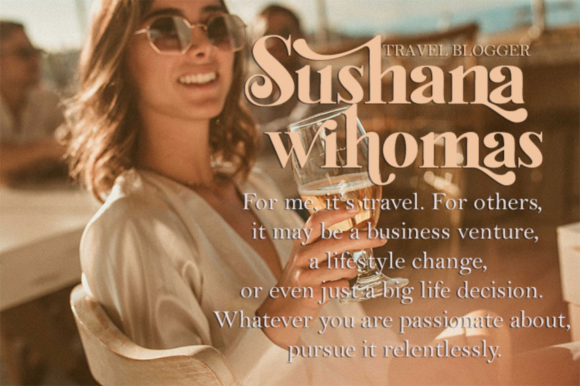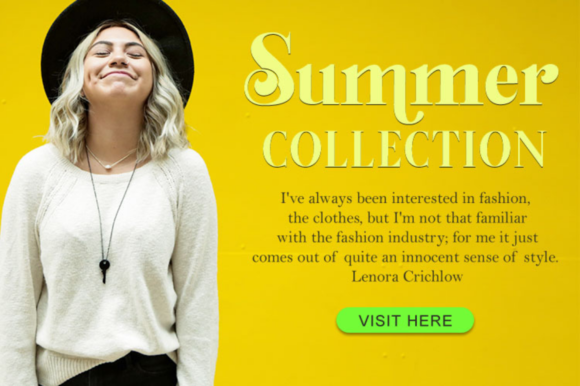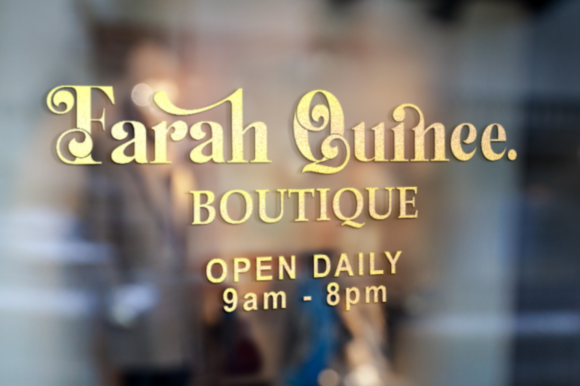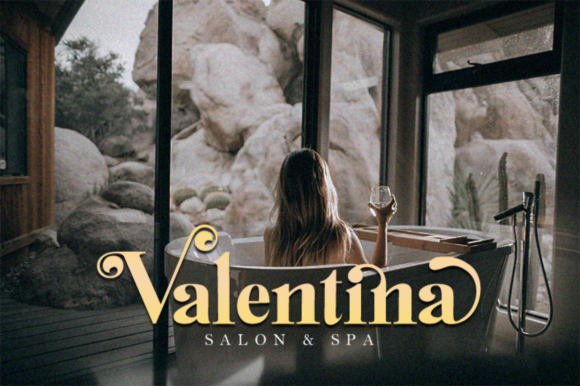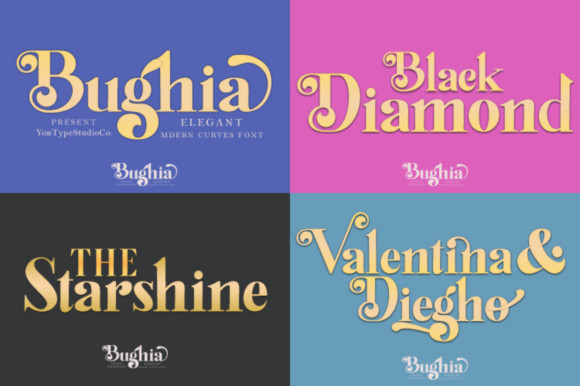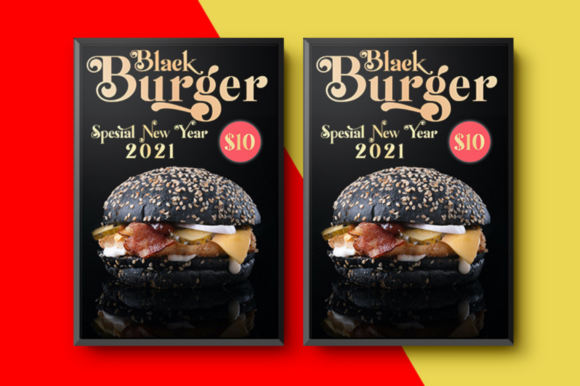
Discover the Timeless Elegance of the Bughia Font
You’ve spent hours scrolling through design inspiration boards, and finally, you’ve found the perfect combination of elements to create your dream project. But, one thing is still missing – the perfect font. You’ve tried many options, but none of them seem to capture the essence of your vision. That’s where the Bughia Font comes in – an elegant and bold serif font that’s sure to elevate your design to the next level.
This versatile font is perfect for creating stunning wedding invitations, beautiful stationery art, eye-catching social media posts, and much more. Whether you’re a seasoned designer or just starting out, the Bughia Font is a valuable addition to your toolkit. Its timeless elegance and sophistication make it an ideal choice for any project that requires a touch of luxury and refinement.
Bughia Font Key Features
- Unique Characteristics: This font features a unique blend of modern and vintage elements, with intricate details and ornaments.
- Font Width: The font has a medium width, making it suitable for both body text and headings.
Bughia Font Review
Overall, I think Bughia Font has some nice qualities that make it a decent choice for certain projects. ✨ Here are some things that work well:
- Unique aesthetic: Bughia Font has a distinctive, elegant design that’s perfect for luxury brands or high-end products.
- Good legibility: Despite its intricate details, the font is still easy to read, making it suitable for body text or headlines.
- High-resolution support: Bughia Font looks great at various resolutions, from small screens to large-format prints.
However, there are some limitations to consider ⚠️:
- Not suitable for all projects: Bughia Font’s ornate design might be overwhelming for simpler projects or everyday use.
- Limited character set: The font may not have all the characters you need, which could be a problem for languages that require a wide range of glyphs.
- Not ideal for web use: Bughia Font’s complex design might cause rendering issues or slow down page loading times.
Overall, I think Bughia Font is a solid choice for designers who need a unique, high-end font for specific projects. While it may not be suitable for all projects, its elegance and good legibility make it a worthwhile option for the right applications.
The Bughia Font is a modern and elegant script font, making it perfect for:
- Wedding and event graphics
- Formal and elegant typography
For the most out of the Bughia Font, experiment with different font sizes, colors, and styles to create a unique and eye-catching design.